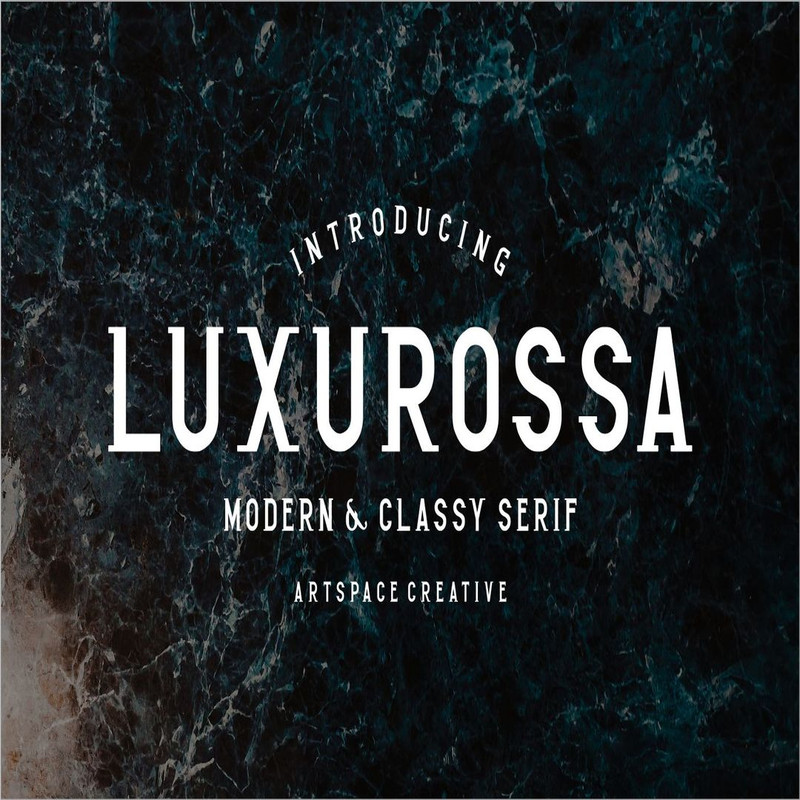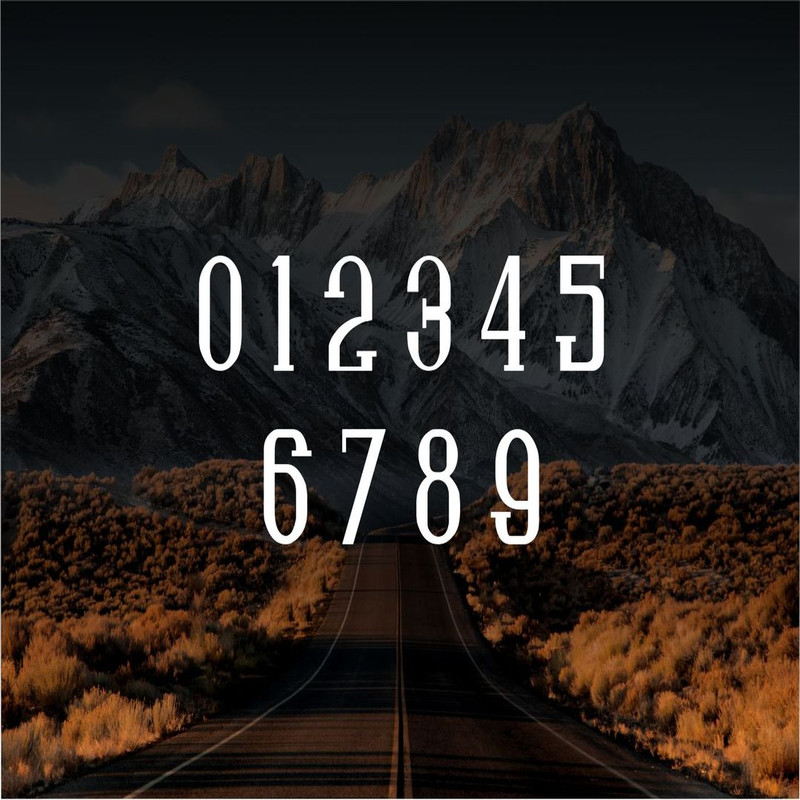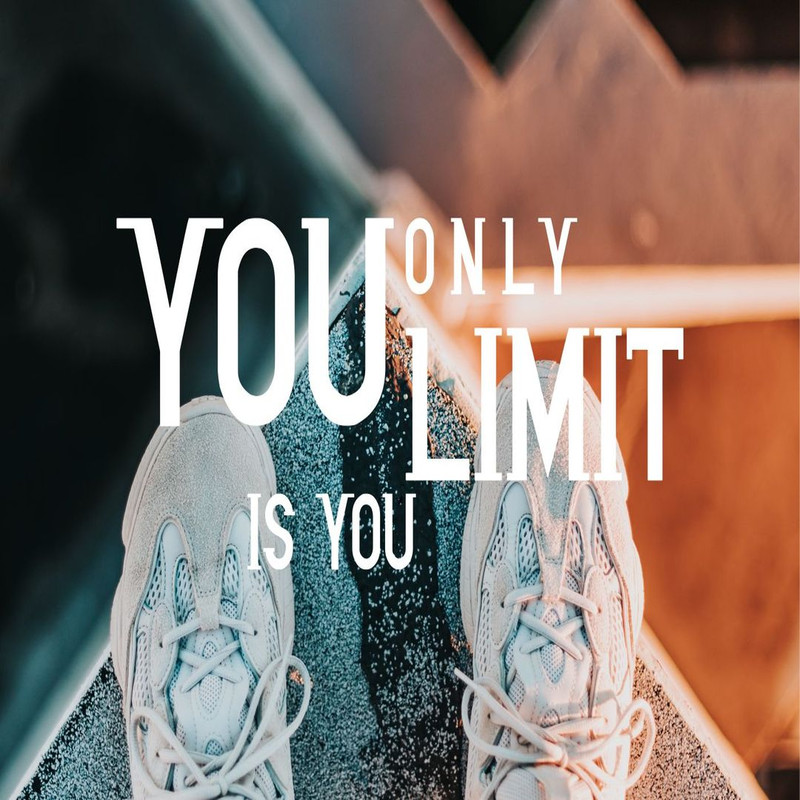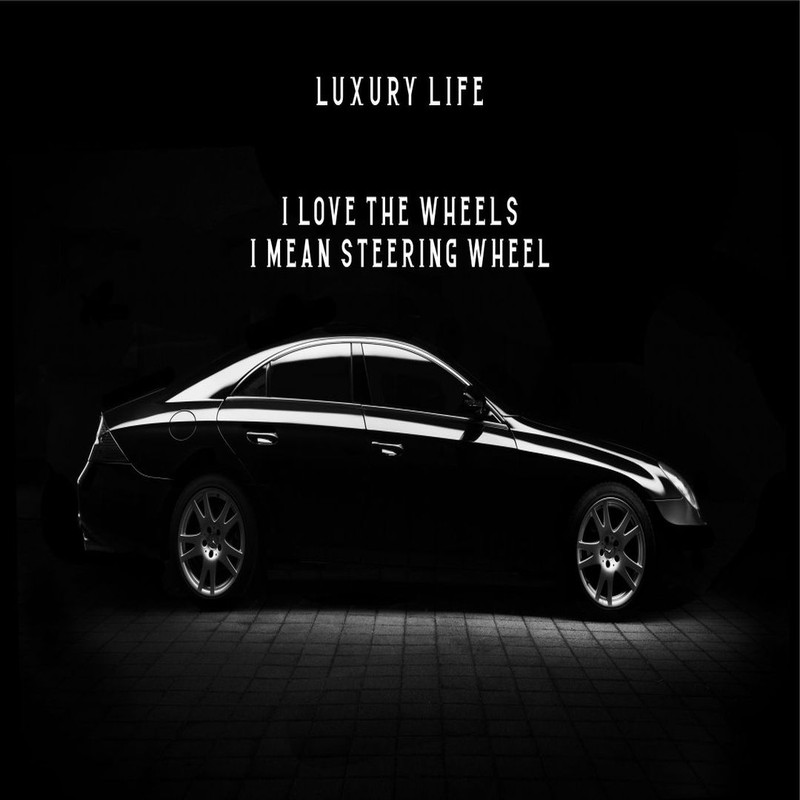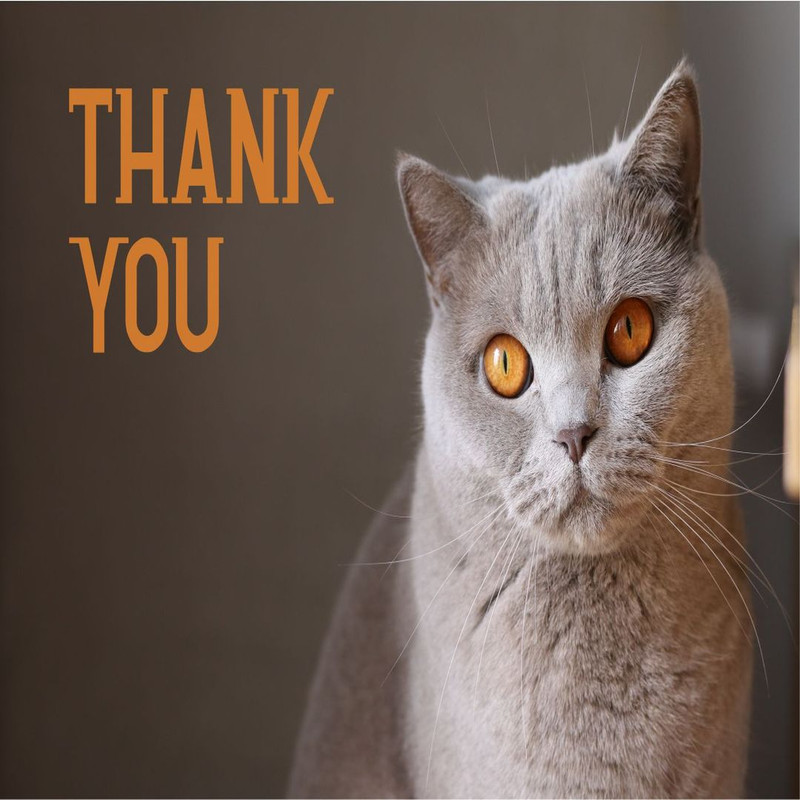
Luxurossa Serif – Classy & Elegant Serif Font is a modern serif font whose
design is refers us to the style of modern which can add to the impression
of luxury and can give a very nice look on each letter.
Have fun using this Unixeraro-Serif Classy font with your various design
needs because it is very suitable for logo, signature, poster, graphic
design, branding, quotes and other design needs.